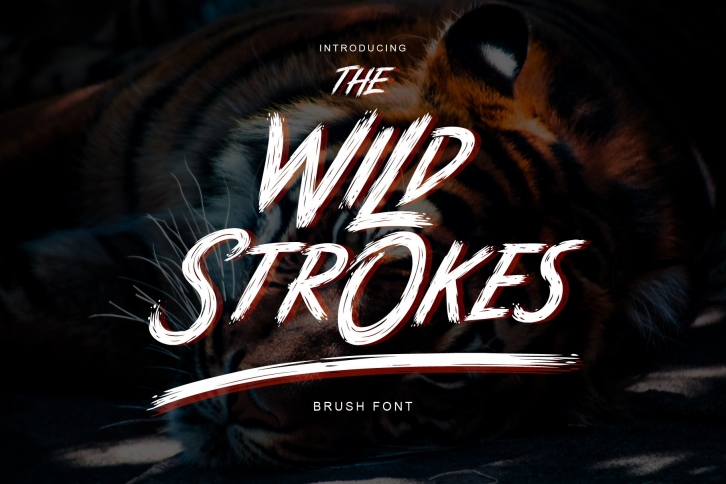
Introducing
Our new font. Dynamic handmade brush font with wild, bold and crazy personality called The Wild Strokes.
The Wild Strokes are made to fit the need of graphic designs that need bold, energy, strength, wild, scary, and sophisticated soul. The Wild Strokes will perfect for Editorial, Branding, Print product, Personal use or Commercial use.
The Wild Strokes have Opentype Features and multilingual accent alongside with the numeric and symbols. It's perfect for any purpose, logotype, branding, clothing, posters, advertisement, packaging, and many more as you feel fit.
It also include the Wild Strokes Swashes to complete the font.
FEATURES :
-Uppercase
-Lowercase
-Number
-Punctuation
-Multilingual
-Swashes
-PUA Encode
-Opentype